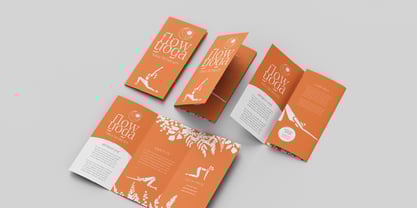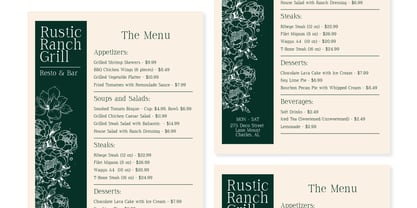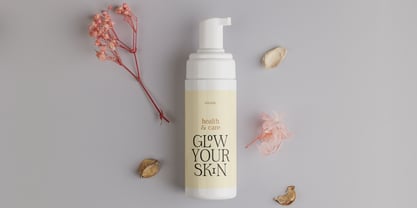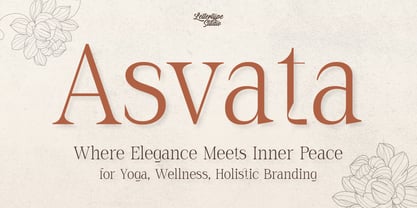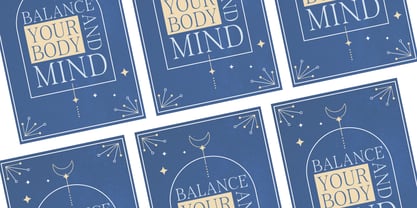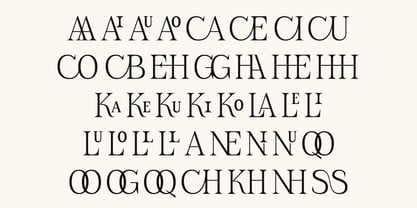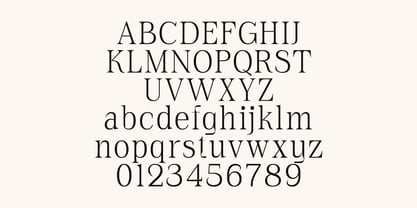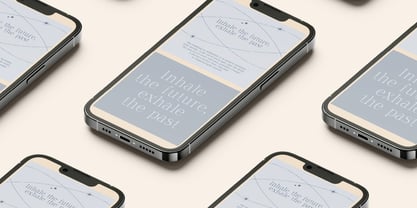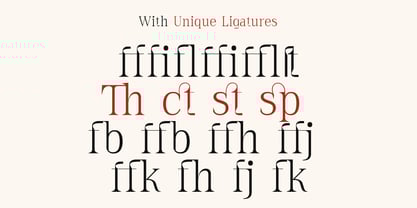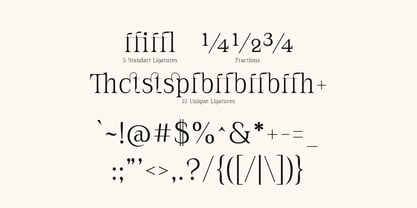
Asvata
by Lettertype Studio
The Asvata Font Family was designed by Diki Pradipta Tri Atmojo and published by Lettertype Studio. Asvata contains 1 styles. More about this family
Asvata is a timeless serif font with organic curves, refined contrast, and a tranquil presence. Rooted in elegance and spiritual depth, Asvata is perfect for wellness branding, yoga studios, holistic product packaging, and mindful design. Its graceful letterforms evoke balance, clarity, and connection, offering a soft yet professional voice across editorial, logo, and digital projects.
Use Asvata to bring harmony to your design. Whether in packaging, invitations, or lifestyle branding, this font radiates inner calm, purpose, and visual serenity.